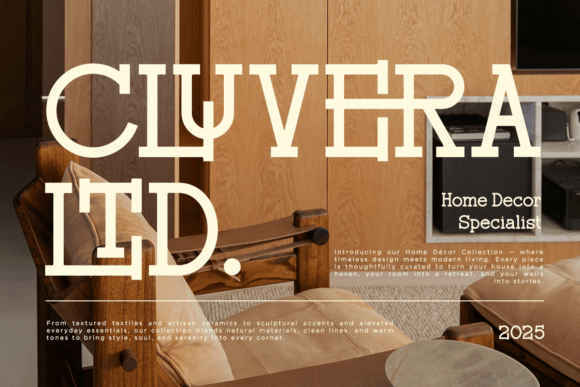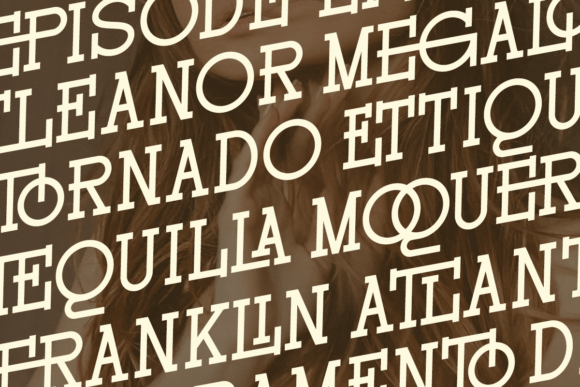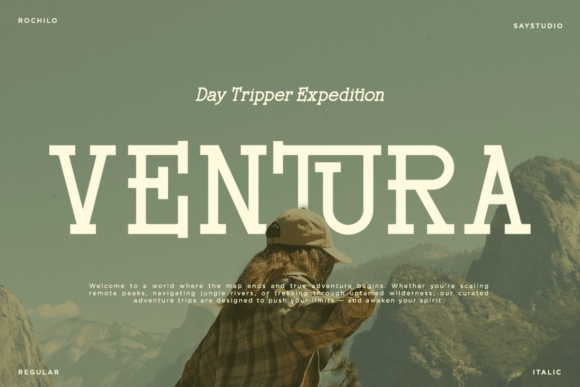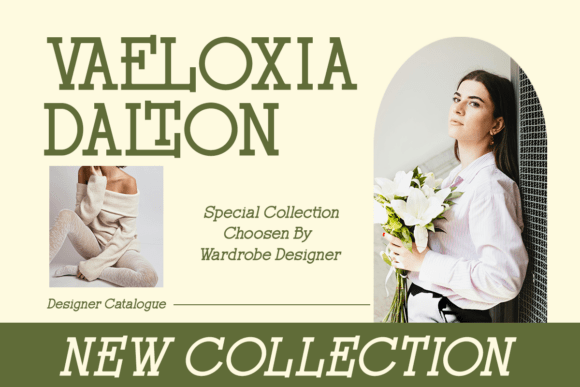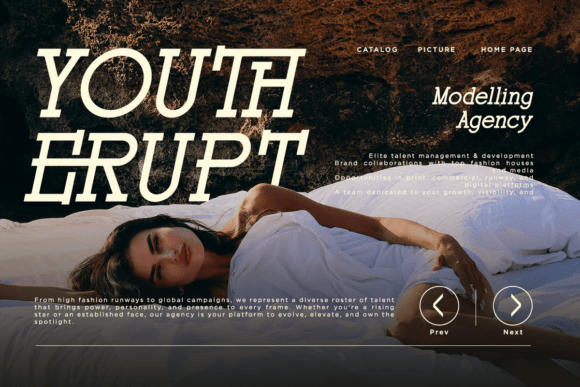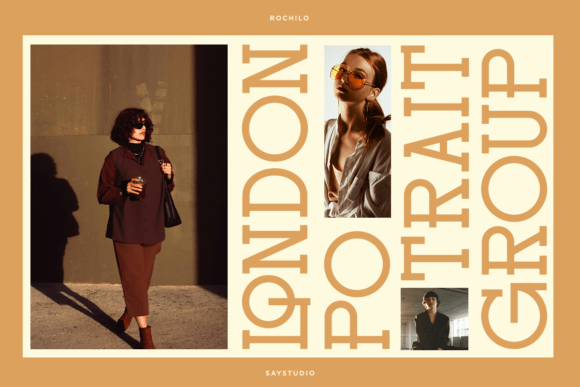
Introduction to Rochilo Font
As designers, we’ve all been there – staring at a blank page, trying to find the perfect font to match our creative vision. The search for that elusive combination of style, sophistication, and personality can be a daunting task. But what if I told you that your search is over? Enter the Rochilo Font, a modern ligatures slab serif font that’s about to revolutionize the way you approach your creative projects.
With its elegant proportions, subtle slab characteristics, and a clean, slightly mechanical edge, the Rochilo Font offers a unique balance of sophistication and personality that’s perfect for branding, fashion editorials, packaging, and high-end visual projects. Whether you’re working on a high-quality design resource or need a reliable font for a creative project, the Rochilo Font is an excellent choice. Its free download and transparent background make it a valuable resource for designers looking to elevate their designs.
- High-quality design resource ideal for creative projects with a unique, elegant style.
- Perfect for use in graphic design, digital art, and other creative projects requiring a sophisticated font.
Honest Review: Rochilo Font
As a designer, I’m always on the lookout for high-quality design resources to elevate my creative projects. Recently, I stumbled upon the Rochilo Font, and I’m excited to share my thoughts on this versatile font.
- ✨ Unique and elegant design aesthetic that adds a touch of sophistication to any project.
- ✨ Wide range of language support, making it suitable for diverse creative projects.
- ✨ Transparent background, allowing for seamless integration with various design elements.
- ⚠️ Limited font weights, which may not be ideal for complex design projects.
- ⚠️ Not as extensive as some other font libraries, which may limit its versatility.
Overall, I’m impressed with the Rochilo Font’s design quality and flexibility. While it may not be perfect, it’s a solid addition to any designer’s toolkit, especially for free. With some additional font weights and styles, it could become a go-to design resource for creative projects.
Common Use Cases for Rochilo Font
Rochilo Font is perfect for:
1. Branding and marketing materials.
2. Social media graphics and posts.
3. Infographics and presentations.